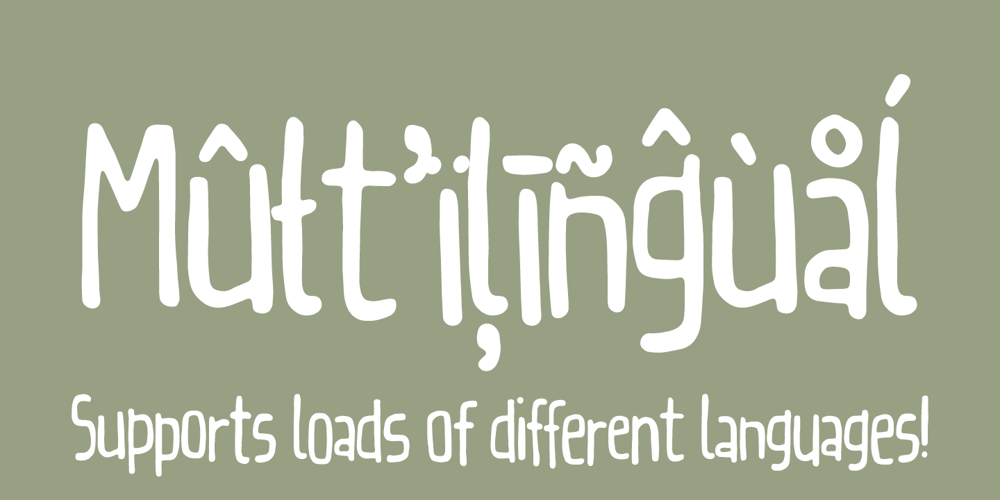
Tudeprins Font Family was designed by published by Bogstav. Tudeprins contains 1 styles and family package options. Tudeprins is not a really positive word – the font probably did deserve another name, but I was inspired after reading a children’s novel, starring a “Tudeprins” The font is dedicated to children’s books, adventures, comics or something related to that – but feel free to use “Tudeprins” for anything you like! Comes with multilingual support as well as contextual alternates!